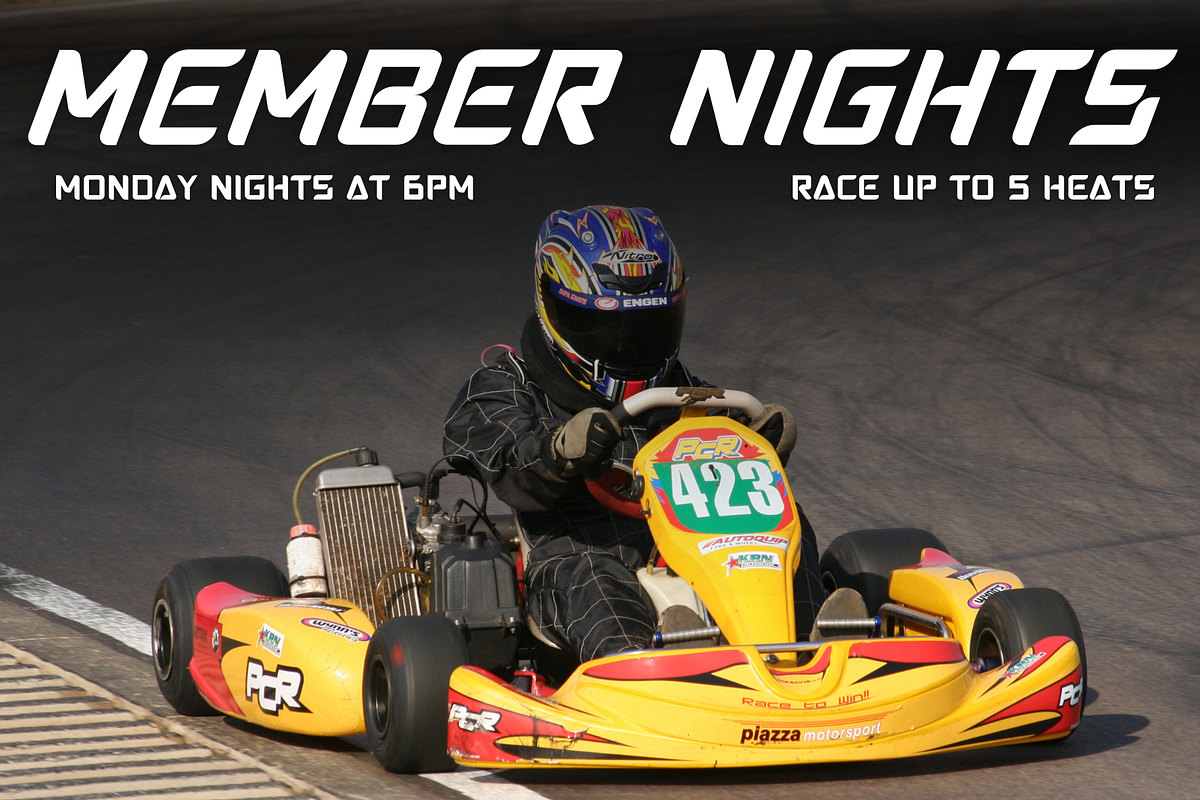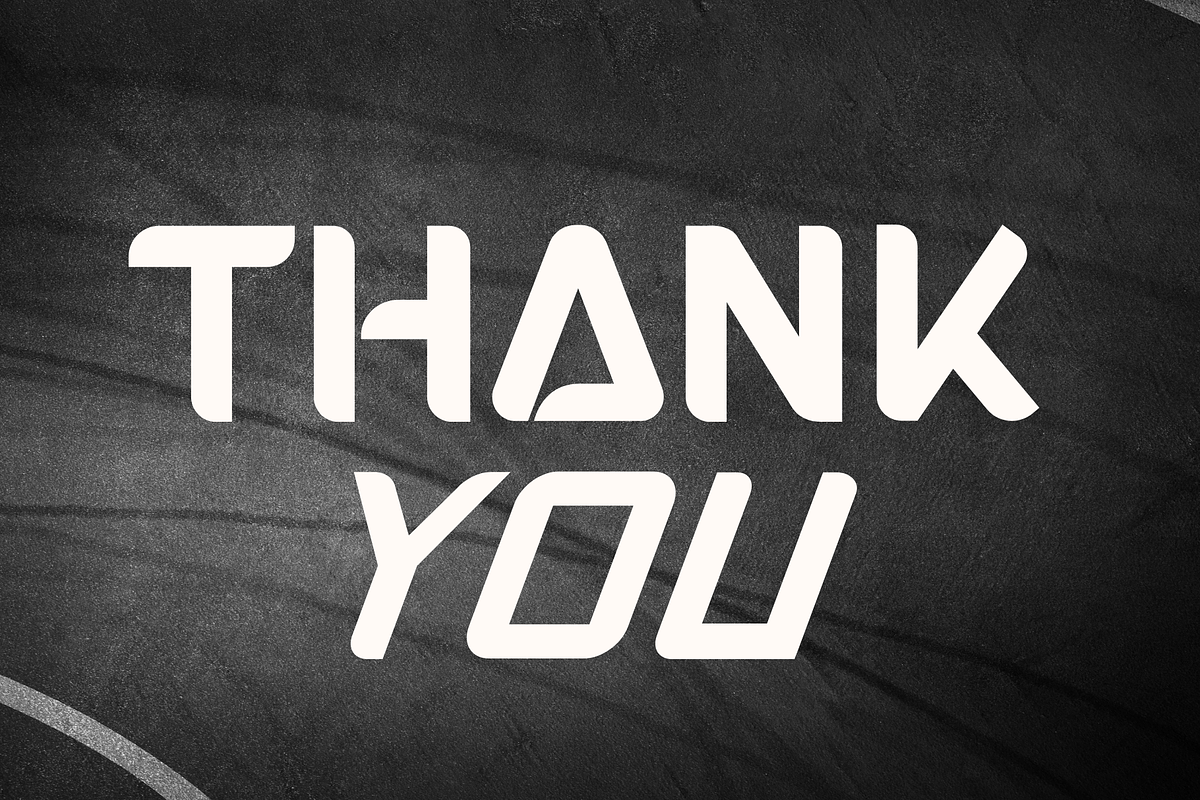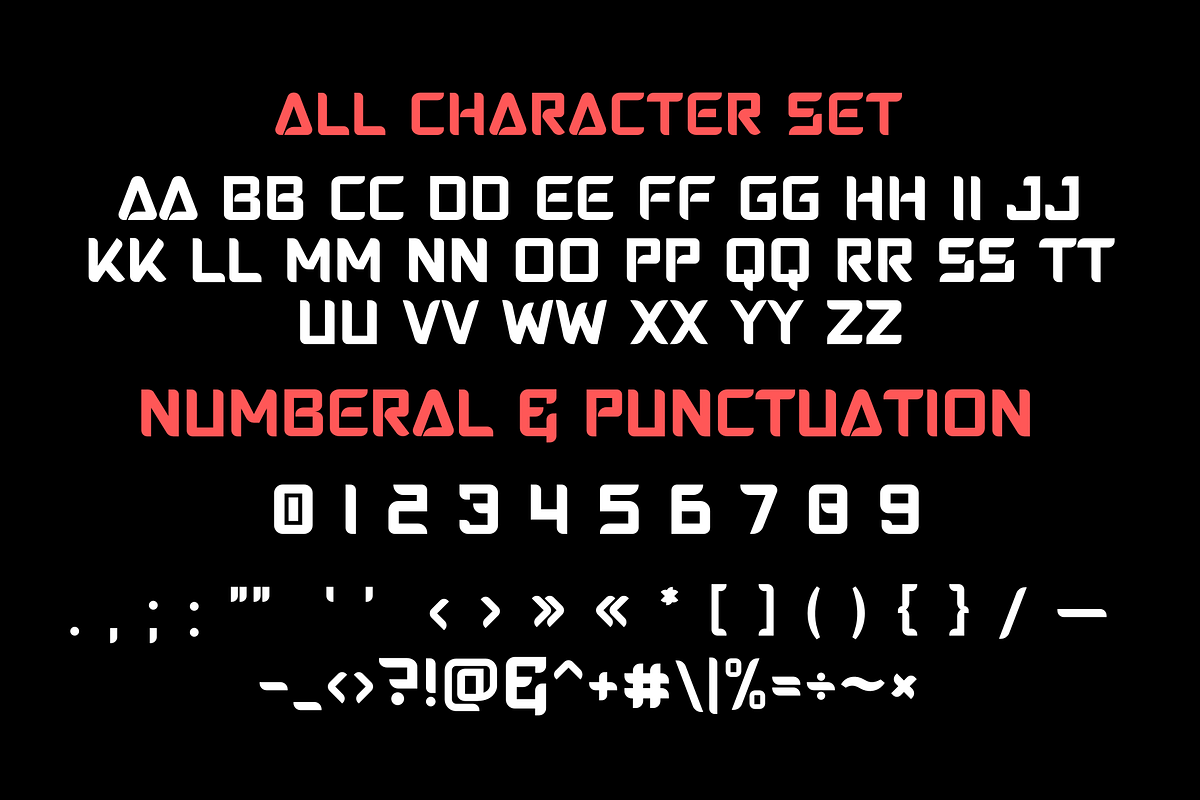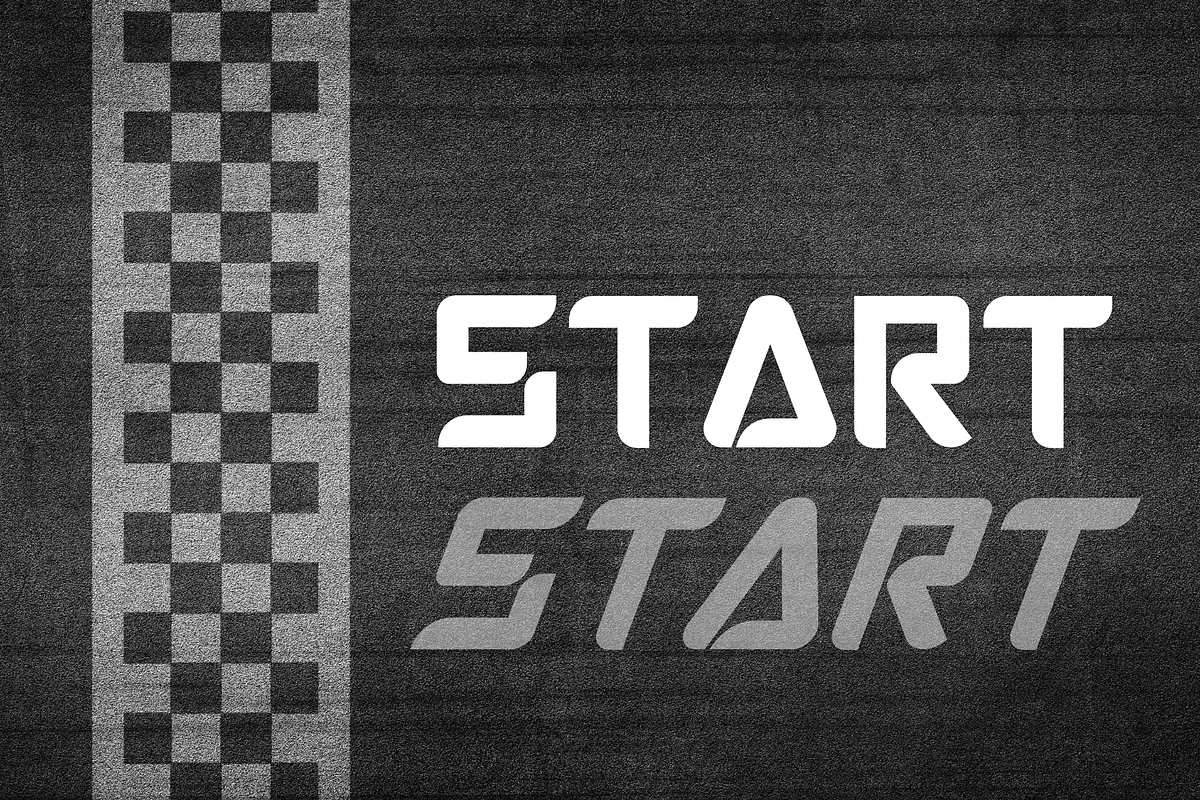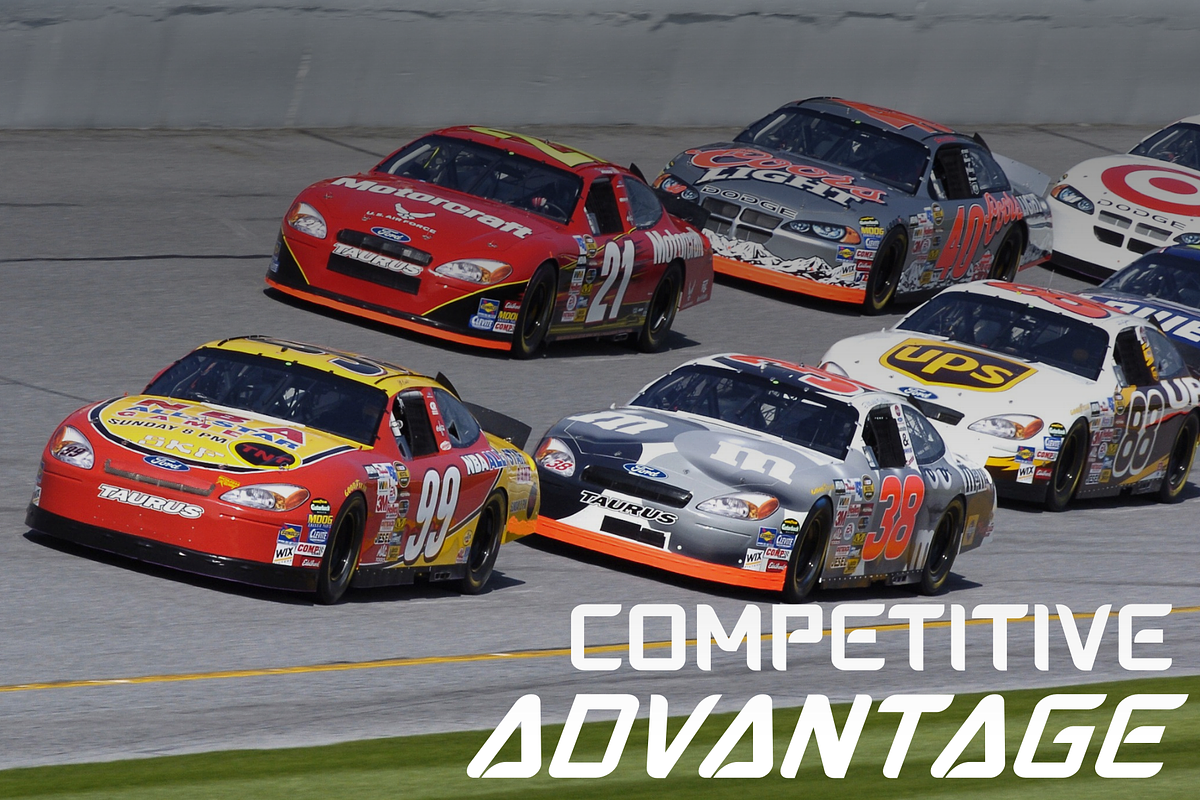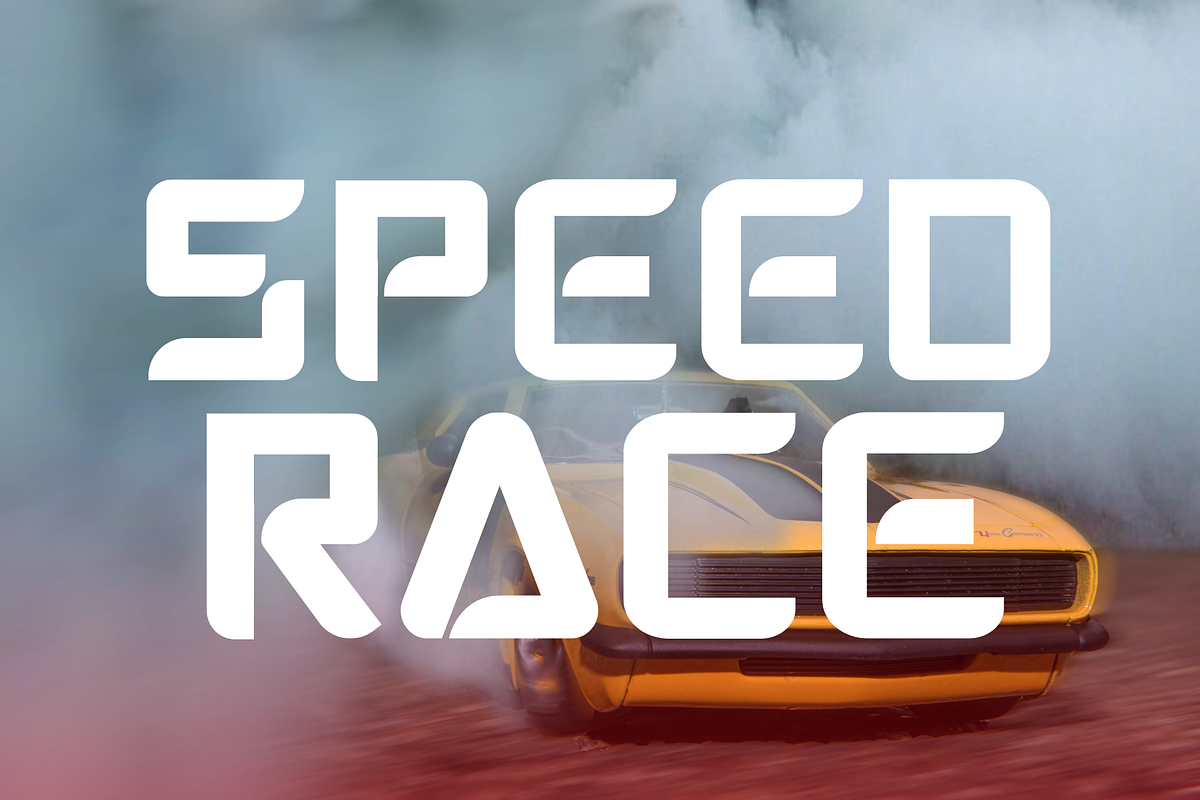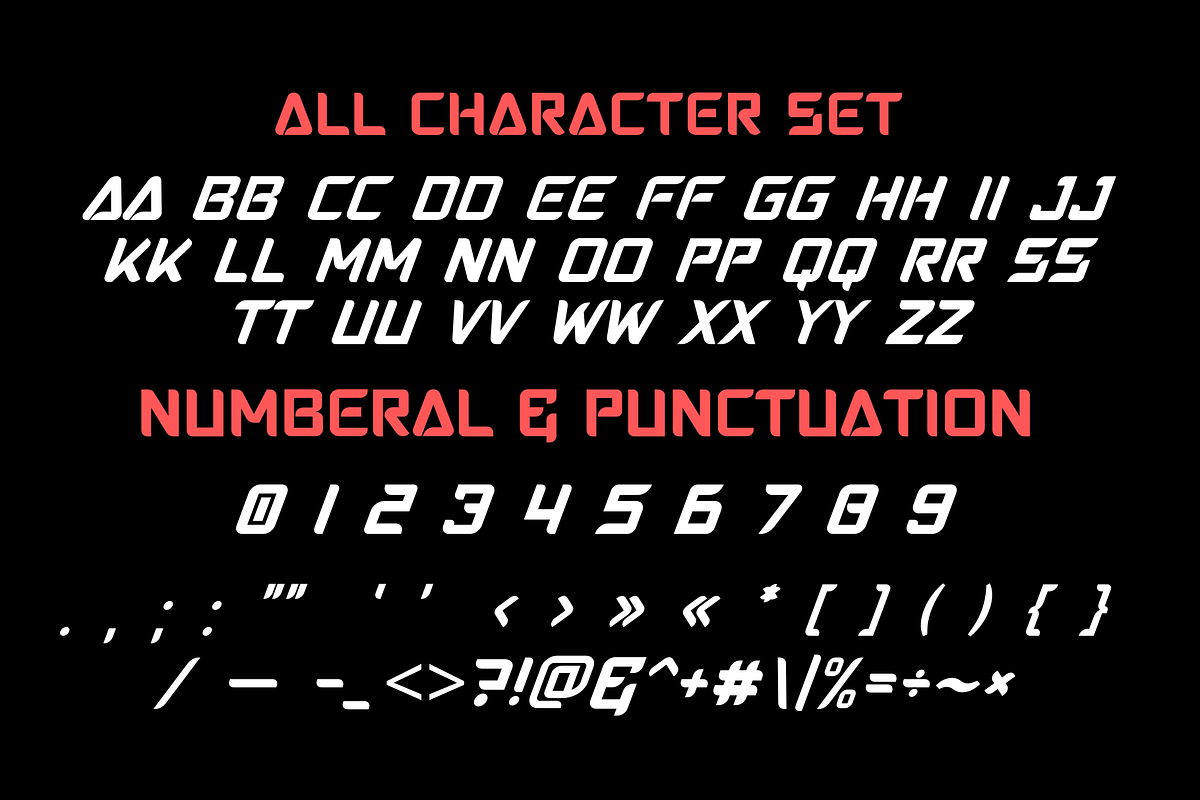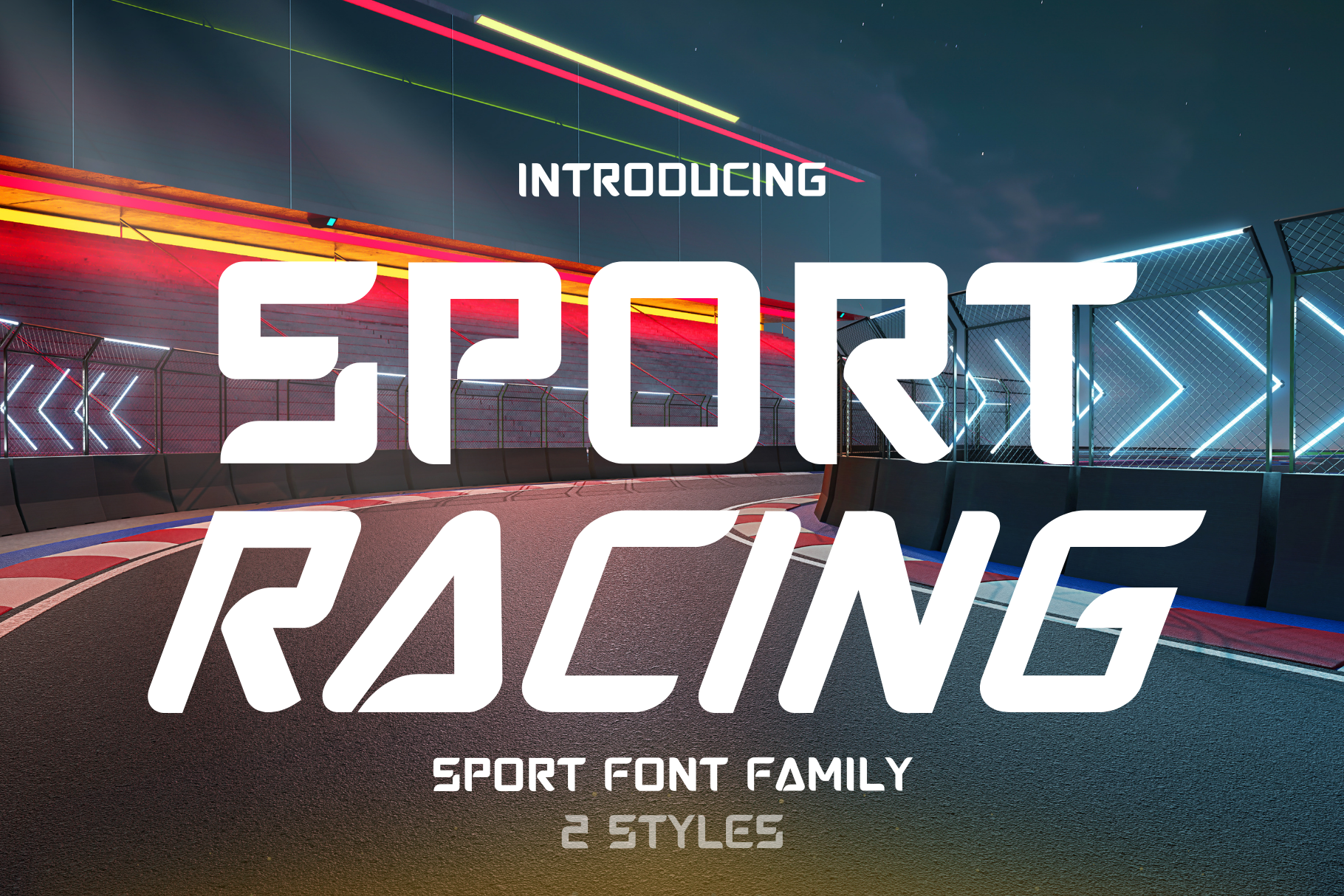
Sport Racing is Sport font
Sport Racing is Sport-Sans serif font. It embodies playfulness and authenticity and is the perfect choice for all your favorite projects, or even for blog posts, logos, branding, ads, invitations, greeting cards, planners, photo albums, decorations, and much more. Add it to any of your designs, and enjoy the results!